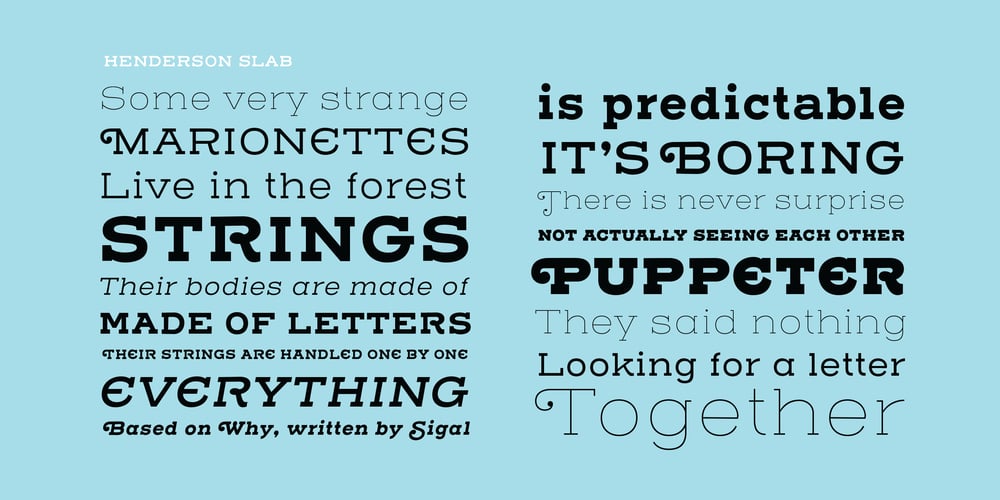
Henderson Slab
Henderson Slab font
Henderson Slab Font Family was designed by Alejandro Paul and published by Sudtipos. Henderson Slab contains 28 styles and family package options. A few bold caps drawn by Albert Du Bois for the 1906 Henderson Sign Painter book started me in the direction of looking at how sign painters approached slabs after the industrial revolution. The usual happened from there. My exercise in the early lettering roots of what eventually became the definition of geometric typography ended up having a life of its own. The majuscules led to minuscules, one idiosyncratic bold weight led to six more, and uprights led to italics. What was kind-of-interesting in the early twentieth century persuaded me to make it interesting enough a century later. This of course meant alternates, swashes, the standard baggage that keeps calling my name. Henderson Slab is a family of seven weights plus italics, all full of open features and extended Latin language support. Part of this family’s appeal is its coverage of nearly the entire of the slab serif through the last 100 years — the basis is the manual, humanist origins, the swashed forms come right out of the phototypesetting era, and the alternates and mostly modern constructs of contemporary ideas. The result is a set with the ability to function in modern spaces, from corporate to editorial, in text or display, while both winking and nodding at the roots of what is now considered a geometric endeavor. (Basic version do not include alternates, swashes, etc).